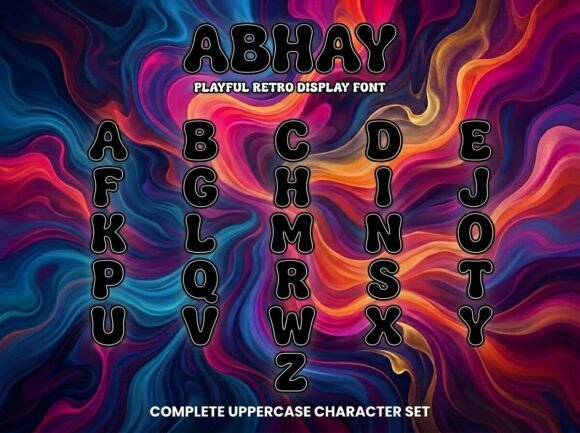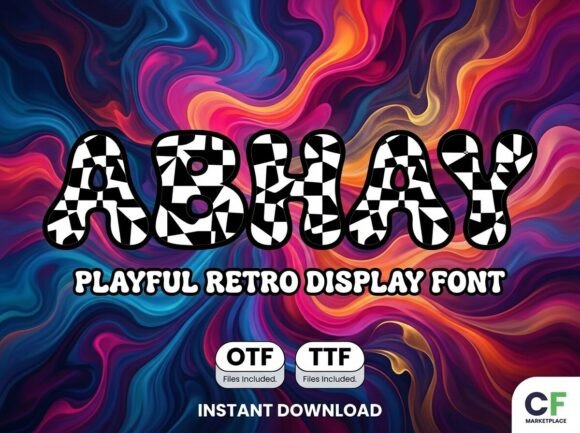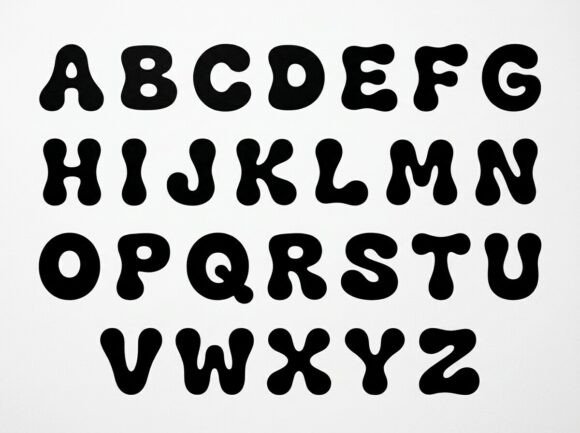
Introducing Abhay Font: A Playful Retro Display Font
Are you ready to add a dash of nostalgia to your design projects? Look no further than Abhay, a vibrant and playful retro display font that embodies the groovy spirit of the 1970s. With its thick, pillowy bubble letters and smooth, flowing curves, Abhay is the perfect typeface for designers and crafters seeking to infuse their work with a sense of fun, optimism, and funky charm.
The Characteristics of Abhay Font
Abhay’s design is characterized by its high-contrast outlines and soft, rounded terminals, which provide a friendly and approachable aesthetic. The font’s smooth, flowing curves and fun, organic rhythm evoke a sense of handcrafted joy, making it ideal for youth-oriented branding, vintage-style posters, creative packaging, and vibrant social media headers.
One of the standout features of Abhay is its thick, pillowy bubble letters, which give the font its distinctive retro look. The font’s rounded terminals and smooth curves also contribute to its playful and approachable feel, making it perfect for designs that require a dash of personality and whimsy.
Perfect for Retro-Inspired Designs
Abhay is a versatile font that can be used to create a wide range of designs, from nostalgic “flower power” style posters to modern-retro branding and packaging. The font’s retro aesthetic makes it perfect for designs that require a fun and playful touch, such as:
- Vintage-style posters and flyers
- Youth-oriented branding and advertising
- Creative packaging and product design
- Vibrant social media headers and graphics
Why Choose Abhay Font?
So why choose Abhay font for your design projects? Here are just a few reasons:
- Unique and eye-catching design: Abhay’s distinctive retro aesthetic is sure to grab attention and add a touch of personality to your designs.
- Versatile and flexible: Abhay can be used for a wide range of design projects, from posters and flyers to branding and packaging.
- Easy to read and use: Despite its playful design, Abhay is easy to read and use, making it perfect for designs that require a clear and concise message.
- Nostalgic and modern-retro aesthetic: Abhay’s retro design makes it perfect for designers and crafters seeking to create nostalgic or modern-retro inspired designs.
Tips for Using Abhay Font
Here are a few tips for getting the most out of Abhay font:
- Use it sparingly: Abhay’s bold and playful design makes it perfect for use in headlines and titles, but it can be overwhelming if used too much. Use it sparingly to add a touch of personality to your designs.
- Experiment with colors and textures: Abhay’s retro aesthetic lends itself perfectly to bright, bold colors and fun textures. Experiment with different colors and textures to add depth and interest to your designs.
- Pair it with other fonts: Abhay can be paired with a range of other fonts to create interesting and dynamic designs. Try pairing it with a clean sans-serif font for a bold and modern look.
Abhay font is a playful and versatile retro display font that is perfect for designers and crafters seeking to add a touch of nostalgia and fun to their design projects. With its thick, pillowy bubble letters and smooth, flowing curves, Abhay is sure to grab attention and add a dash of personality to any design. Whether you’re aiming for a nostalgic “flower power” look or a modern-retro aesthetic, Abhay delivers a sense of handcrafted joy and optimistic, funky charm to every word.